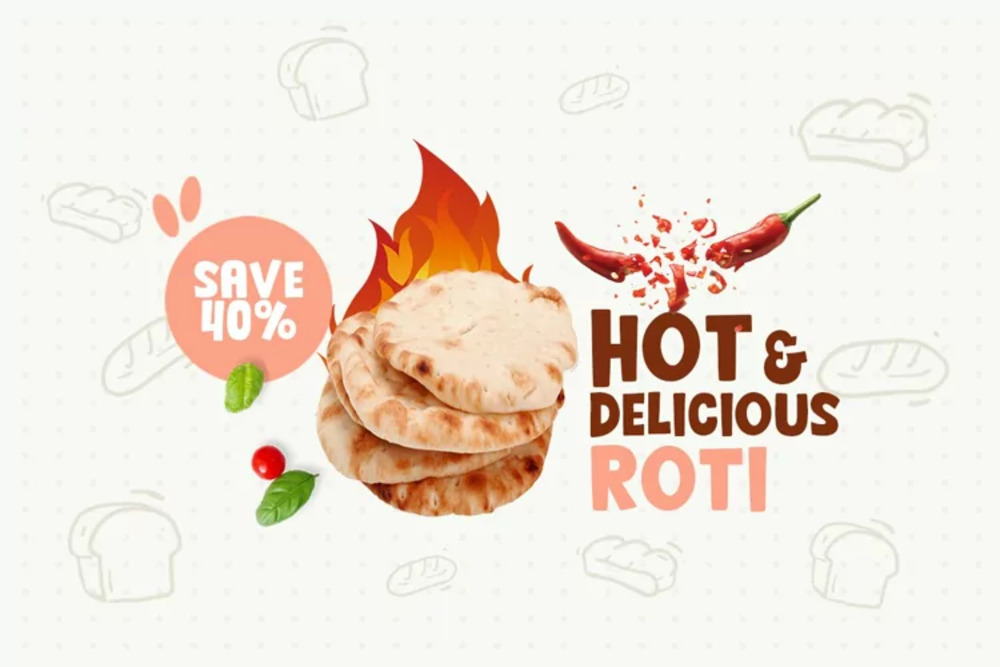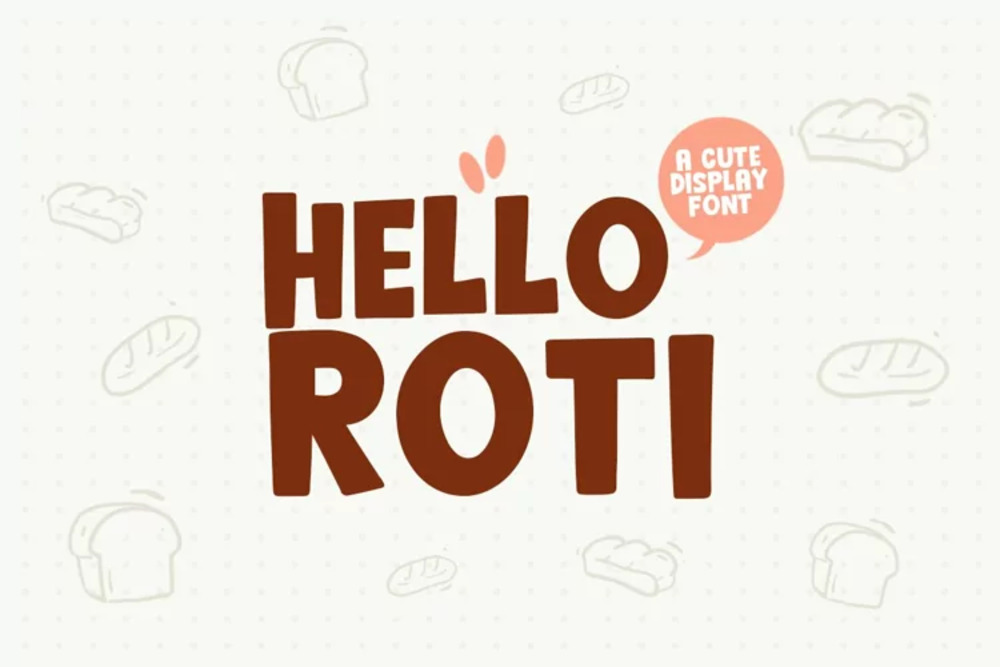
Hello Roti Font
Hello Roti is a fun and quirky display font with a playful, hand-drawn feel. Its chunky letters and slightly irregular shapes create a friendly and approachable vibe. Perfect for food-related designs, children’s projects, and anything that needs a touch of whimsy, Hello Roti adds a unique and memorable touch. It’s a great choice for headlines, logos, and other eye-catching applications.